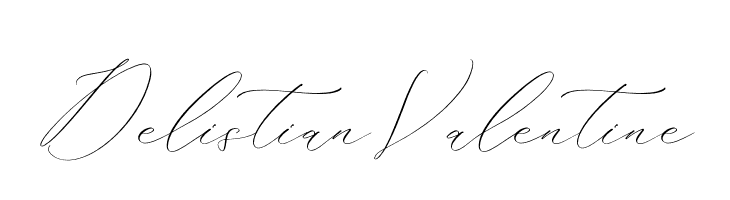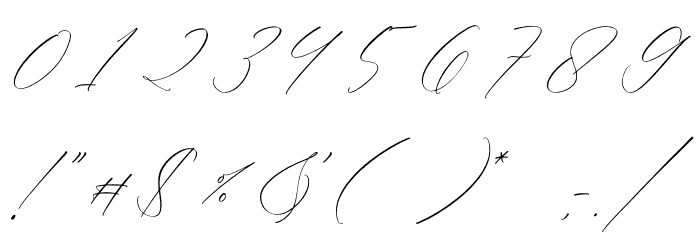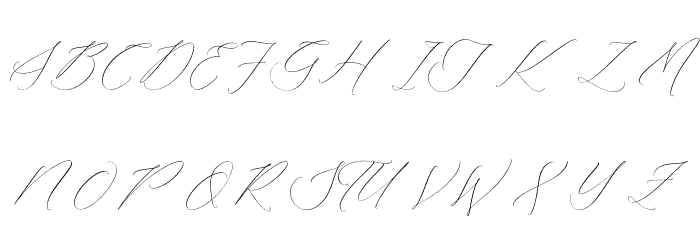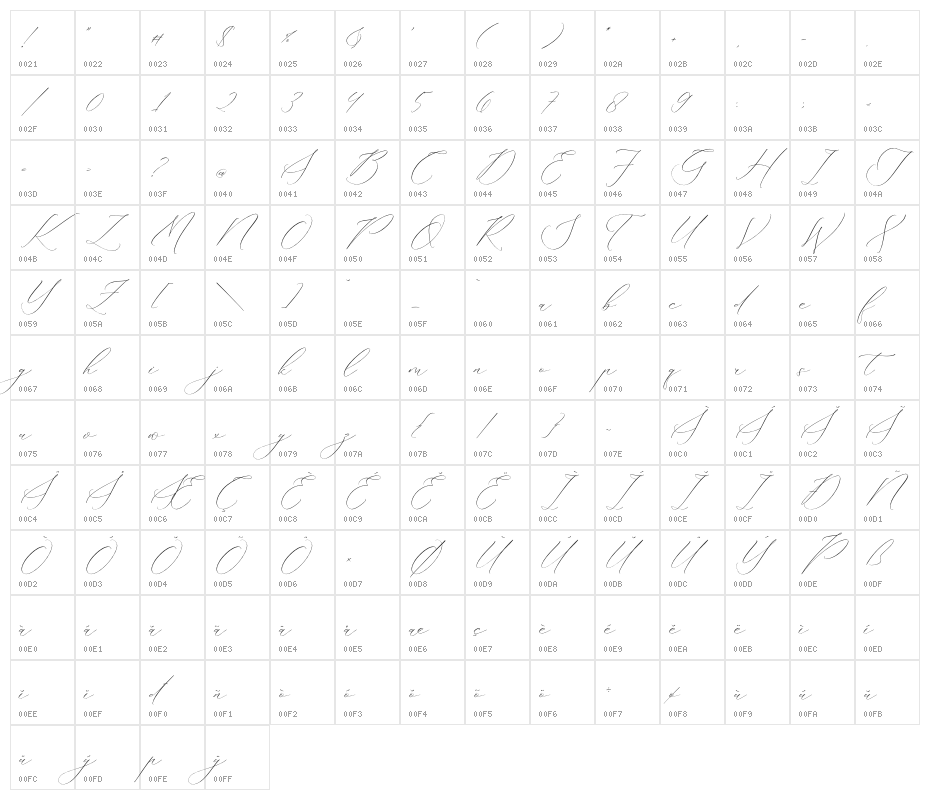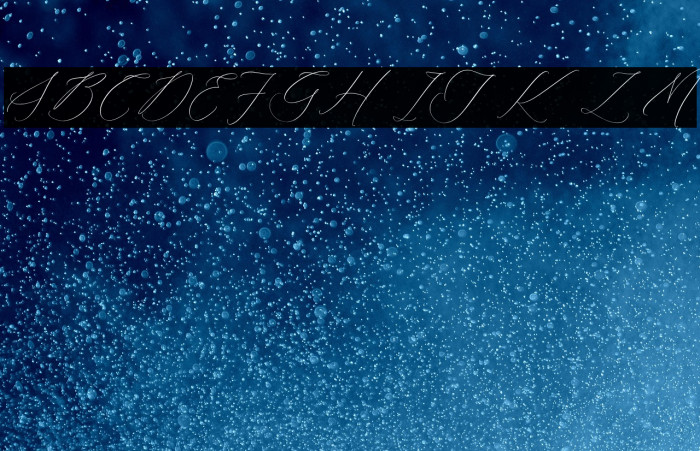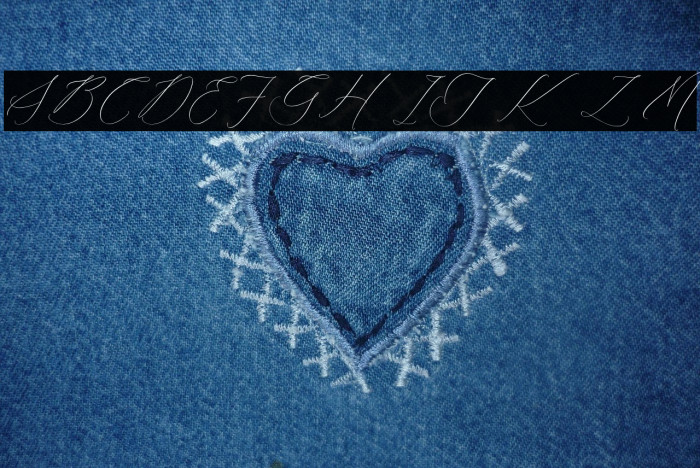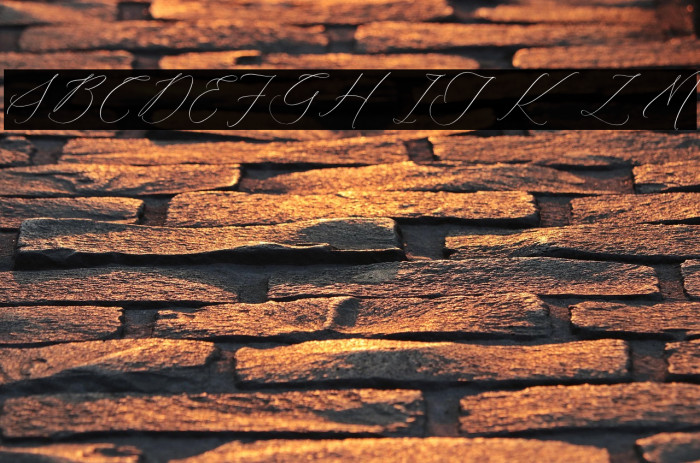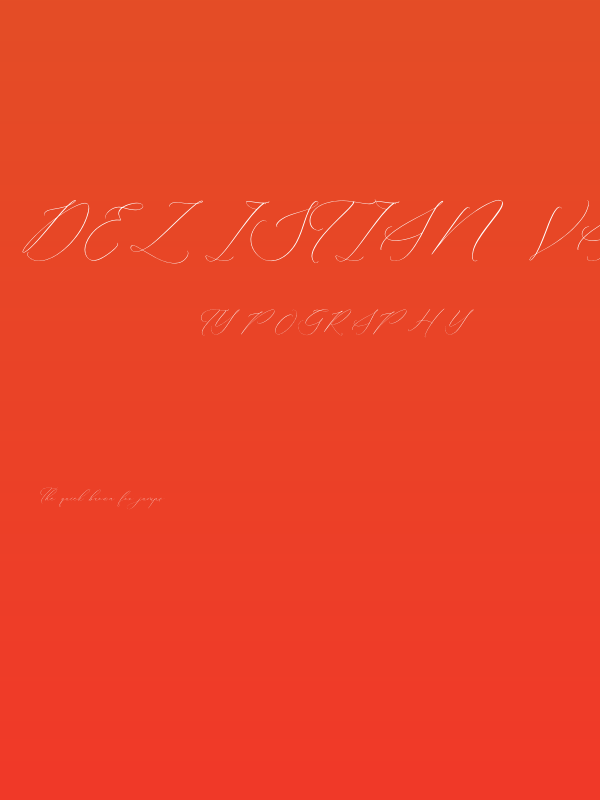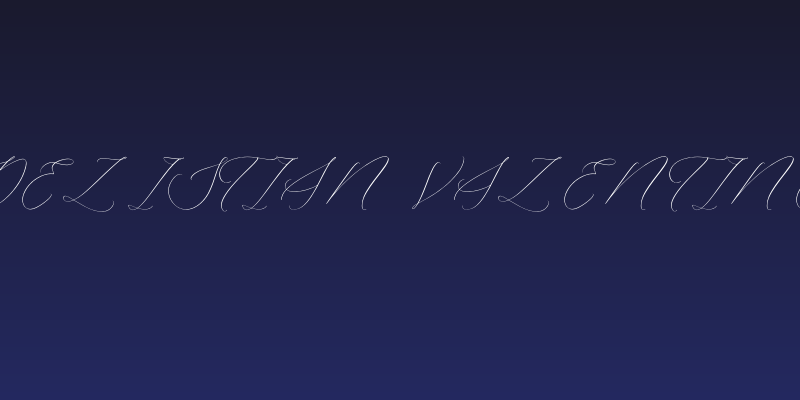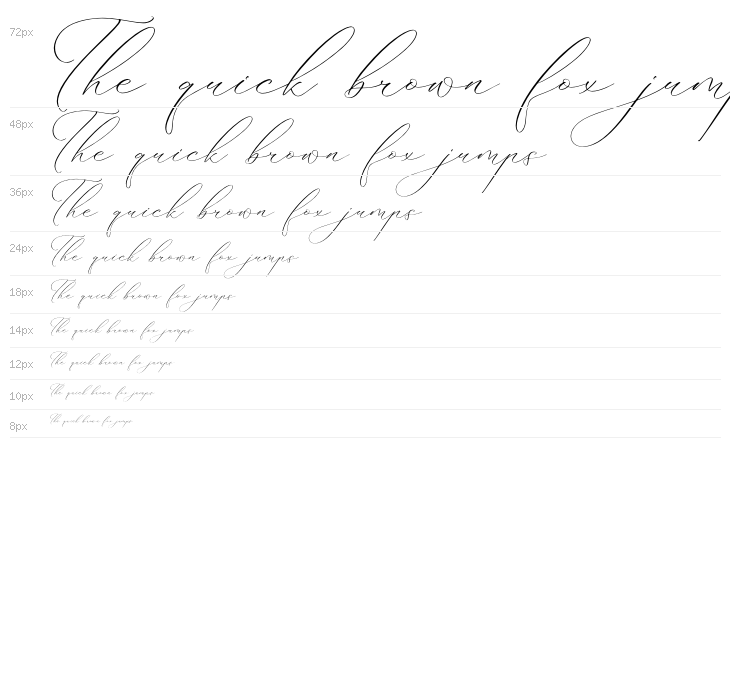
Delistian Valentine Font
Delistian Valentine Description
Elegant and flowing script font with delicate, thin strokes and a handwritten appearance.
| Overall Style | Decorative |
| Use Case | Logos, Invitations |
| Proposed Projects | Wedding invitations, greeting cards, elegant branding. |